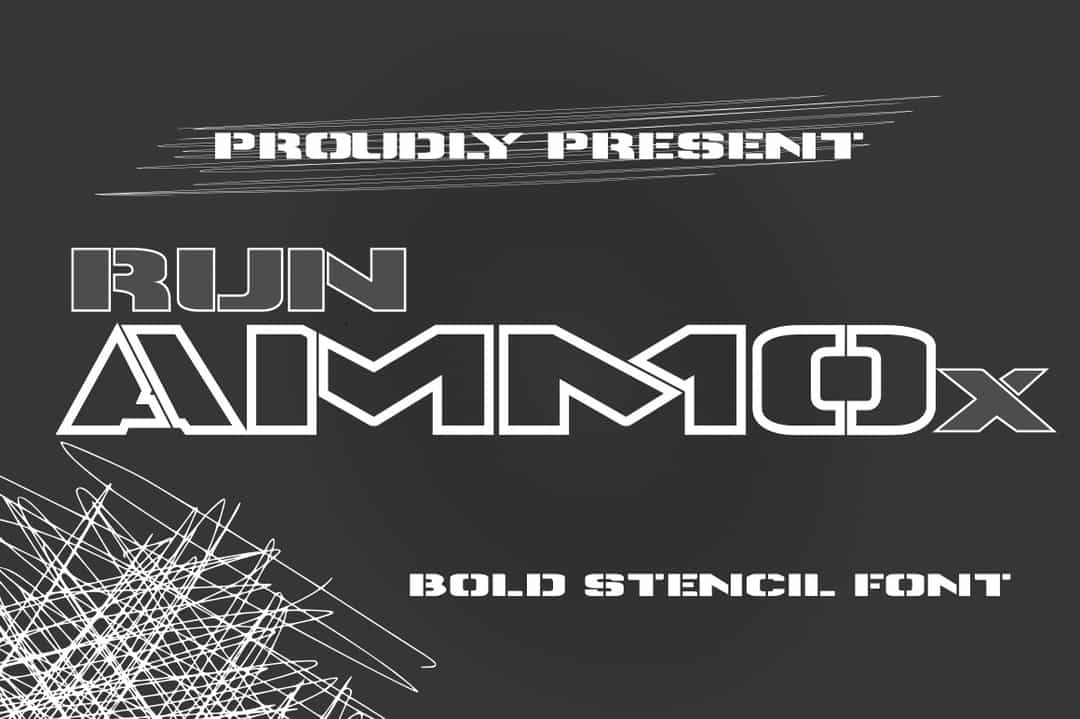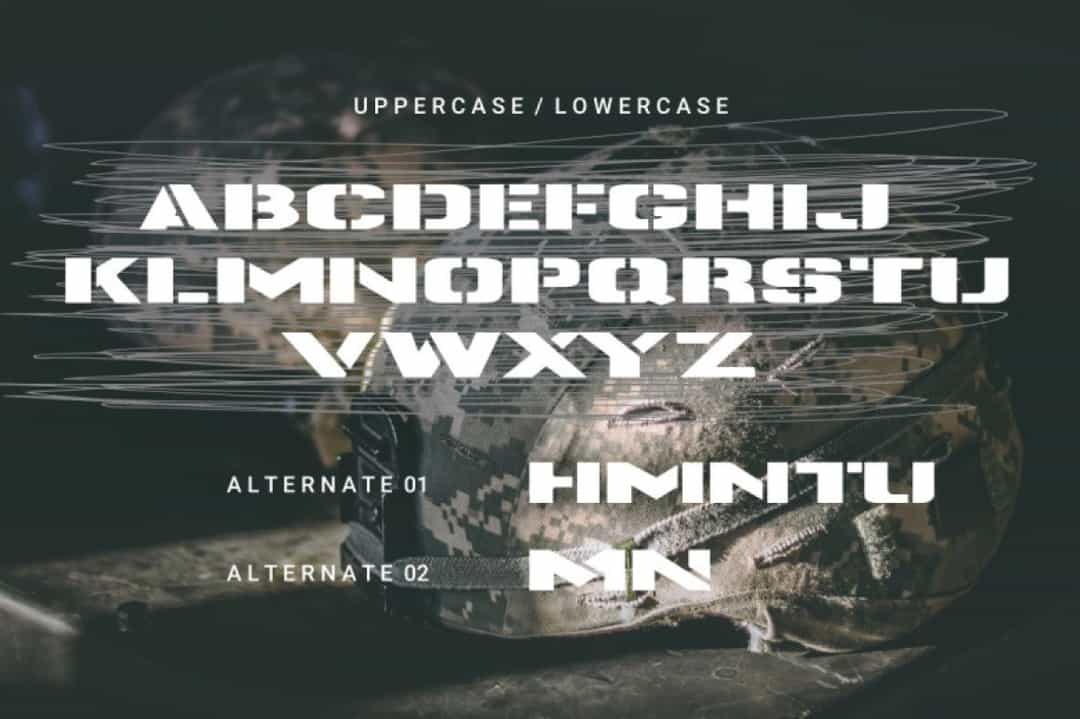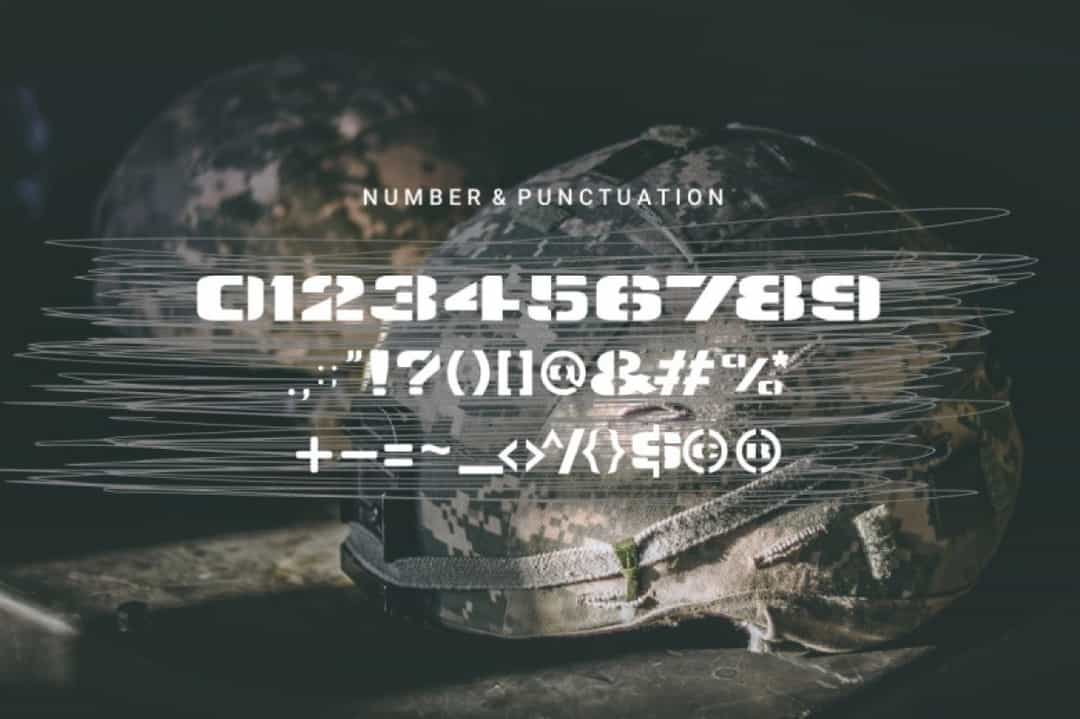
Discover Runammox Font, part of the Display Stencil Army Techno collection—a versatile and unique font perfect for adding a personal touch to your projects. Download it for free and enjoy crafting designs with style, from invitations to social media posts. This font is available exclusively for personal use, giving you the freedom to create without limits. Unlock your creativity with Runammox Font today!
Runammox Display Font boasts an eye-catching flat stencil, tailored specifically to meet the design requirements associated with an army or sport motif. Perfect for logos, apparel, badges, posters and much more.